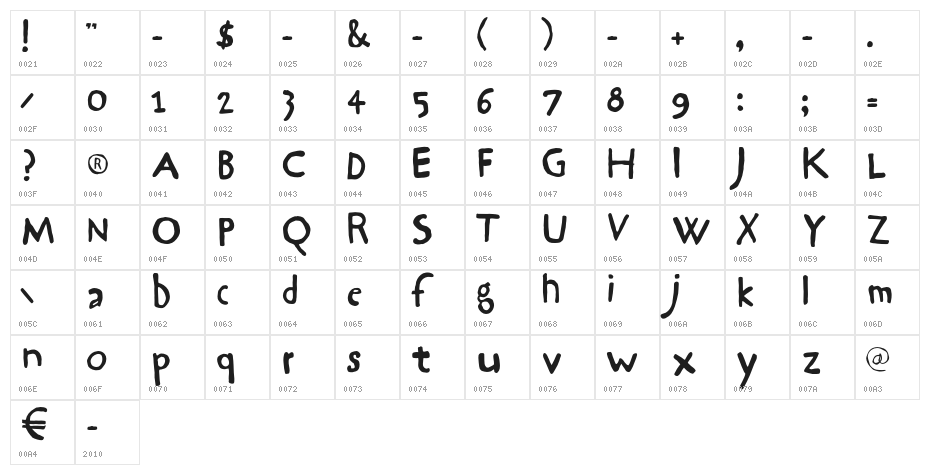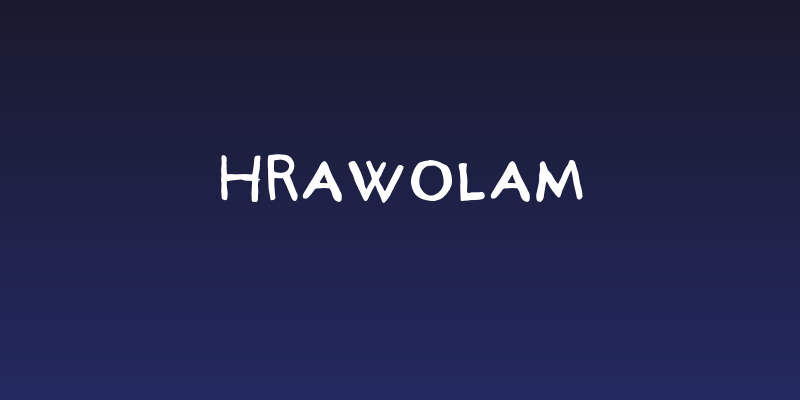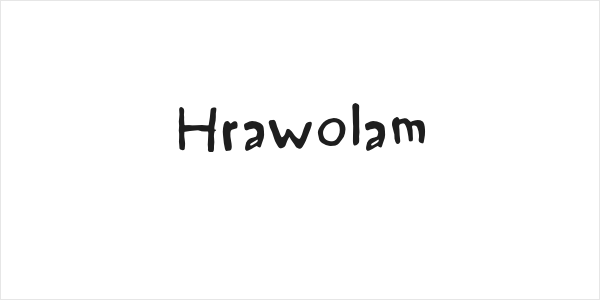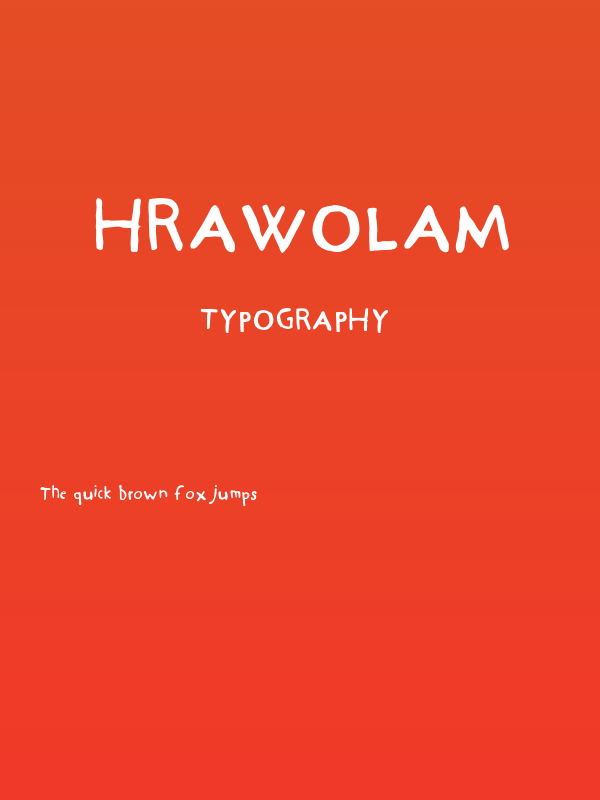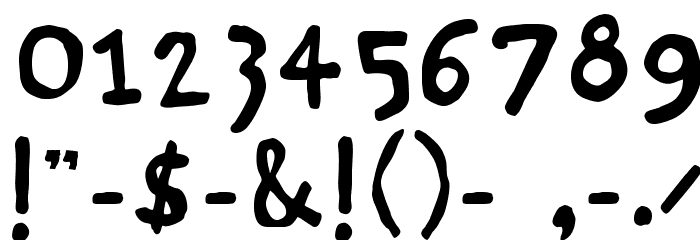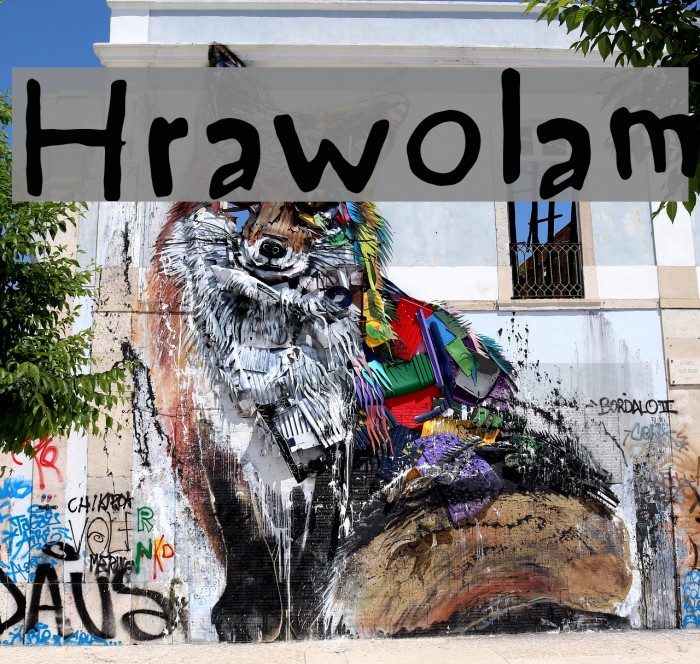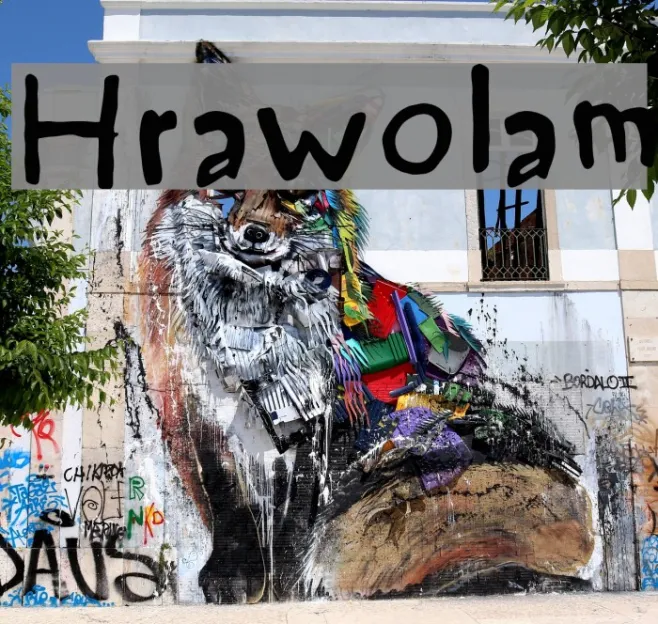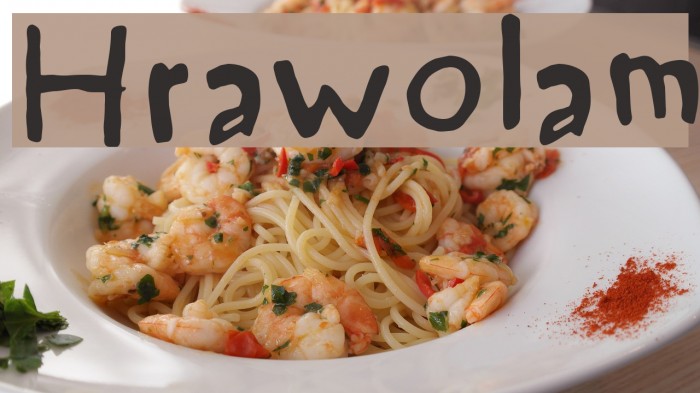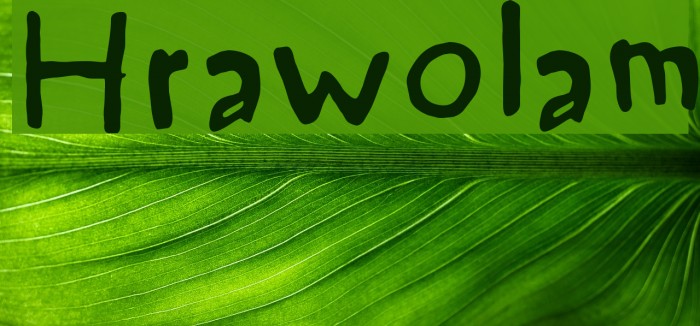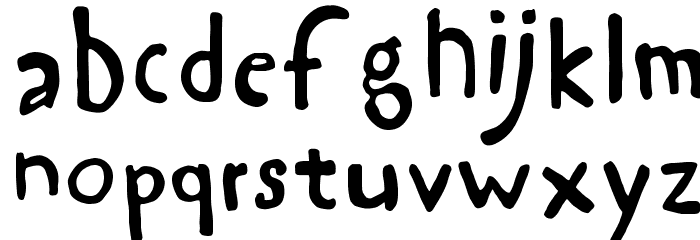
Hrawolam Font
Hrawolam Description
This playful and informal font features a hand-drawn style with irregular strokes and a casual appearance. The uppercase letters are bold and slightly uneven, giving a whimsical feel. The lowercase letters maintain the same playful tone, with some characters like 'g' and 'y' having distinctive loops. Numbers are consistent with the overall style, appearing slightly tilted and varied in width. Special characters are creatively designed, adding to the font's charm. This font is ideal for projects that require a fun and approachable aesthetic.
| Proposed Projects | Ideal for children's books, casual invitations, playful branding, and creative posters. |